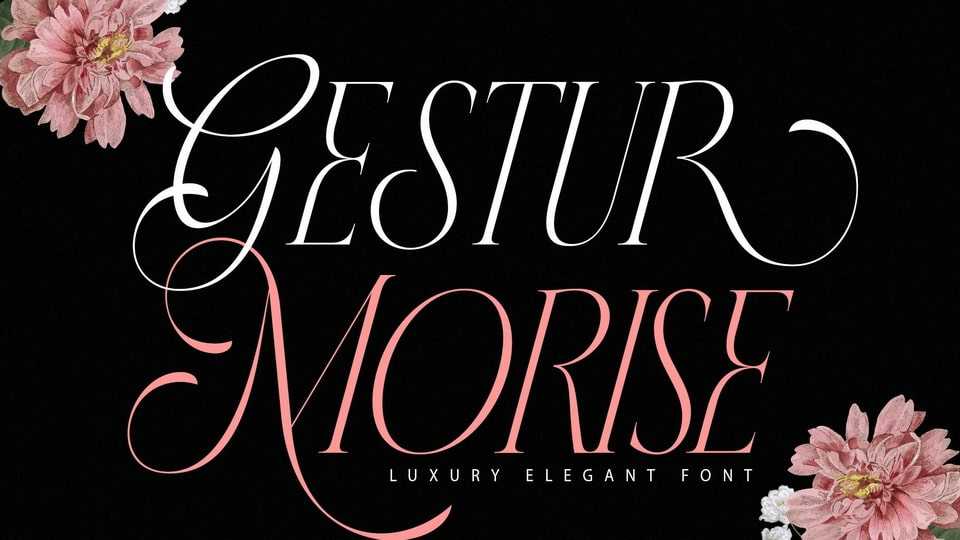
Download Gesture Morise font, a fancy serif typeface with a lot of ties to it. with great detail. Gesture Morise font is perfect for your work to make it look elegant and luxurious.